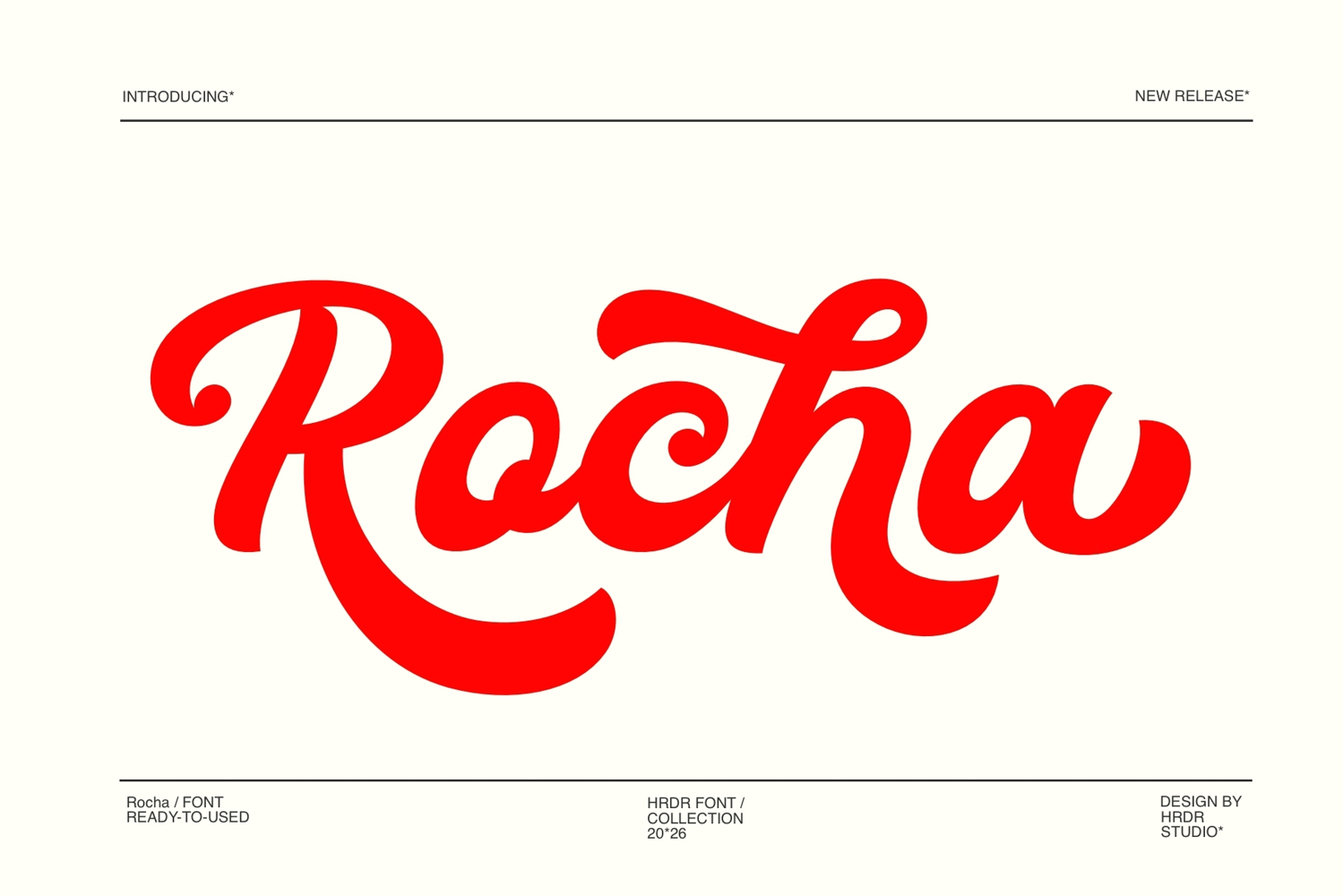
Rocha is a casual script font with refined, fluid letterforms that bring elegance to any design. Its graceful style suits branding, stationery, and wedding projects, offering both professionalism and artistic flair. Use Rocha for memorable logos, sophisticated invitations, or polished product packaging to achieve a cohesive and stylish finish.
This font is also ideal for social media graphics, advertisements, posters, and photography overlays, adding a distinct character to each application. Rocha’s versatility ensures a polished look for special event promotions and product labels, providing a consistent, upscale aesthetic across platforms.